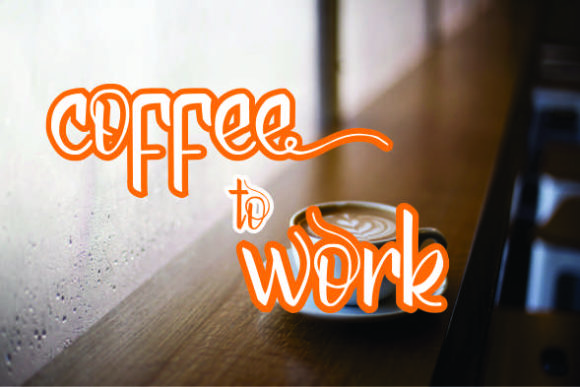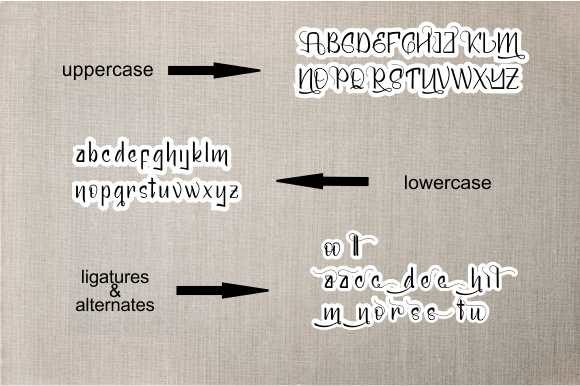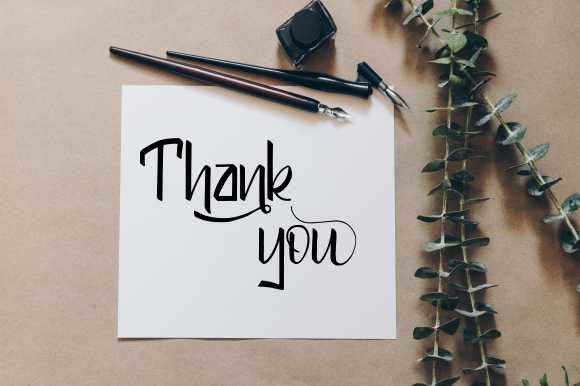
Mellunker Font
About Mellunker Font
The Mellunker is a striking handwritten font. It has an elegant style which makes it perfect for feminine and chic designs.